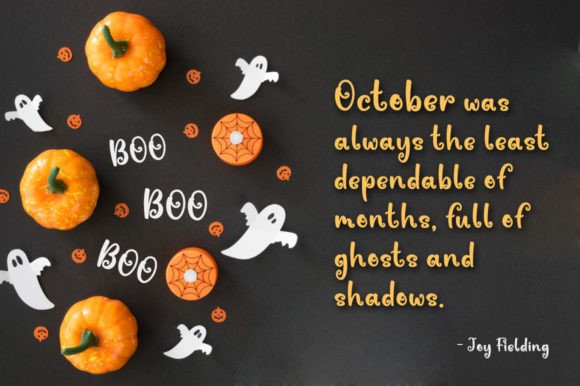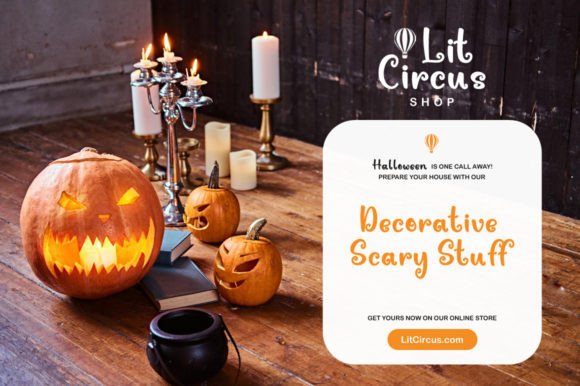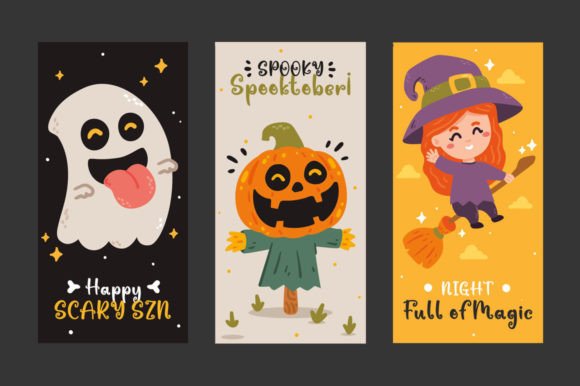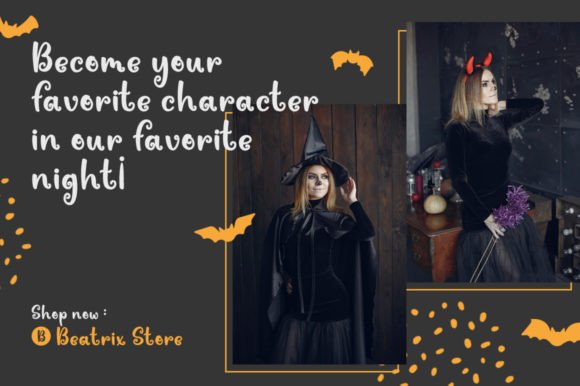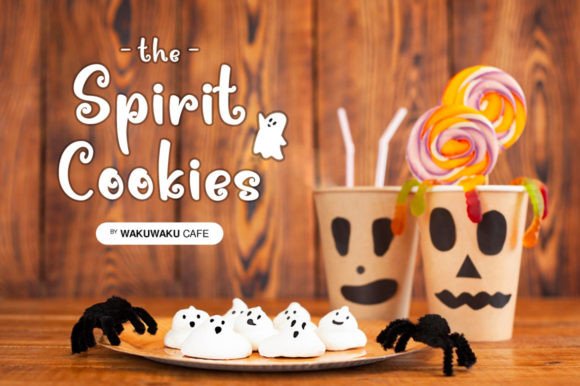
Spooky Font
About Spooky Font
**”Spooky” Handwritten Font: Simple Elegance for Chalkboard Designs**
The “Spooky” handwritten font is a delightful blend of simplicity and authenticity, making it an excellent choice for creating chalkboard quotes and teaching materials. Its clean and unpretentious letterforms lend a personal and realistic feel to your designs. Here are some creative applications and design ideas where “Spooky” can shine:
1. **Chalkboard Quotes:** “Spooky” is tailor-made for chalkboard quotes. Whether it’s inspirational phrases, daily reminders, or witty sayings, this font captures the essence of hand-lettered chalkboard art.
2. **Teaching Materials:** Design engaging teaching materials, including worksheets, flashcards, and educational posters. “Spooky” adds a touch of authenticity and approachability to educational content.
3. **Classroom Decor:** Enhance the visual appeal of your classroom with “Spooky” chalkboard-style posters and displays. Create headers for bulletin boards, classroom rules, or subject labels.
4. **Invitations and Event Signage:** Use “Spooky” to design invitations and event signage for rustic-themed gatherings, such as Halloween parties, vintage weddings, or farm-to-table events.
5. **Restaurant Menus:** Create chalkboard-style menus for cafes, bistros, or restaurants. “Spooky” adds a touch of casual elegance to menu boards and specials.
6. **Craft Projects:** Incorporate “Spooky” into DIY craft projects, including handmade greeting cards, scrapbooking, and home decor items like custom chalkboard signs.
7. **Social Media Graphics:** Design eye-catching social media graphics with a chalkboard-inspired aesthetic. “Spooky” can be used for promoting quotes, events, or daily specials.
8. **Book Covers:** Customize book covers with the “Spooky” font to give them a handcrafted and artistic appearance. Ideal for genres like poetry, self-help, or vintage-themed books.
9. **Logo and Branding:** Develop logos and branding materials for businesses with a rustic or artisanal identity. “Spooky” adds a personal touch to brand identities.
10. **Vintage Labels:** Create vintage-style labels for homemade products like jams, preserves, or artisanal candles. “Spooky” complements the handmade and nostalgic vibe.
11. **Artisanal Packaging:** Enhance the packaging of artisanal goods with “Spooky.” It adds authenticity to product labels and packaging designs.
12. **Typography Art:** Design typography-based artwork and prints. “Spooky” lends itself to creating visually appealing art pieces featuring text-driven designs.
13. **Handcrafted Signage:** Craft hand-lettered signs for events, markets, or local businesses. “Spooky” gives signage a warm and inviting appeal.
14. **Inspirational Posters:** Create posters featuring motivational quotes or positive affirmations using the “Spooky” font. It evokes a sense of encouragement and authenticity.
“Spooky” is more than just a font; it’s a tool for infusing authenticity and simplicity into your design projects. Whether you’re adding charm to your classroom materials, crafting chalkboard-style quotes, or enhancing your brand’s rustic identity, “Spooky” captures the essence of handwritten charm. Its clean, unadorned letterforms make it versatile and well-suited for a wide range of creative applications.